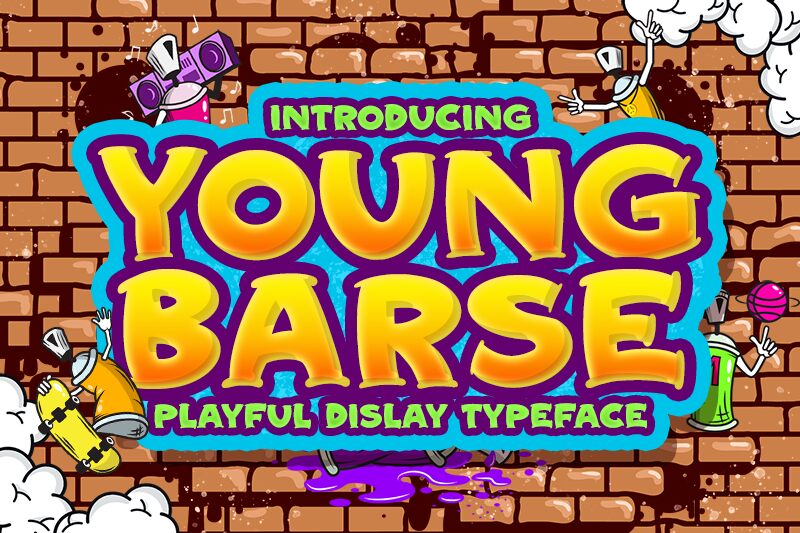
Young Barse is a bold, wide, playful display font designed by M Arif Dwi Prasetyo & Eko Nurcahyo. Perfect for poster designs, blog titles, and website headers; Young Barse adds an eye-catching twist to your projects!
Young Barse
Creakokun Studio
M Arif Dwi Prasetyo & Eko Nurcahyo